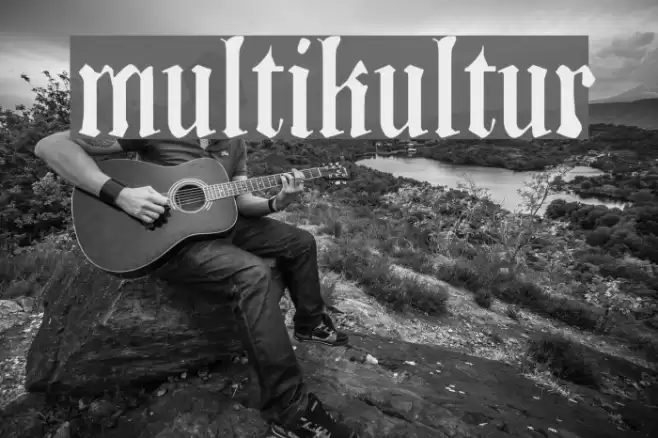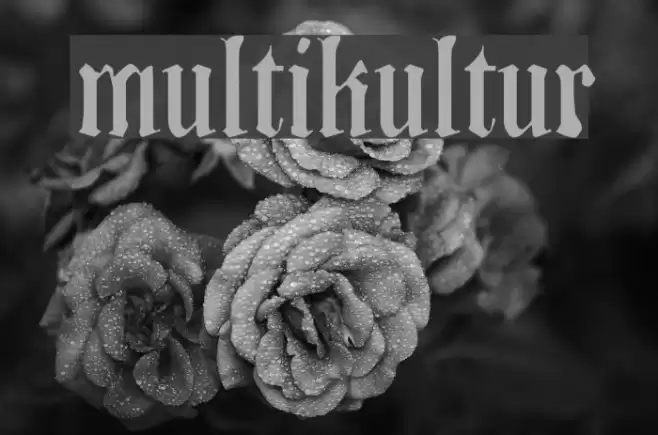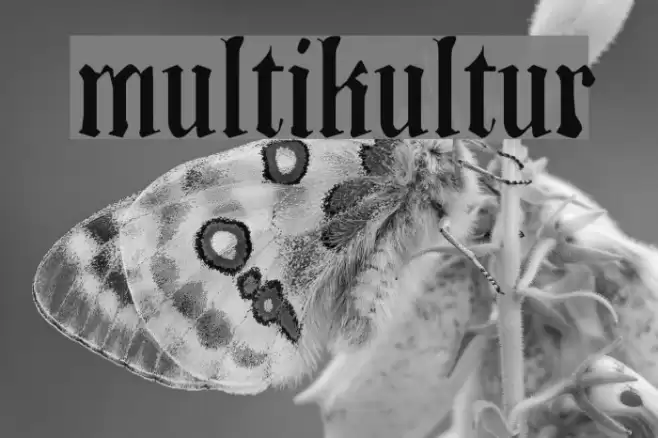
Multikultur Font
Multikultur Description
This font features a classic blackletter style, characterized by its ornate and intricate design. The letters have sharp, angular edges with a distinct medieval aesthetic. The uppercase and lowercase characters maintain a consistent style, with bold strokes and a high level of detail. The numbers and special characters are equally elaborate, fitting seamlessly with the overall design. This font exudes a sense of tradition and history, making it ideal for projects that require a touch of elegance and sophistication.
A classic blackletter font with ornate, angular designs and a medieval aesthetic from Uncategorized fonts.
- Proposed Projects: Ideal for historical documents, certificates, wedding invitations, book covers, and branding that requires a traditional or gothic touch.
- Overall Style: Vintage
- Use Case: Headlines, Logos, Decorative text